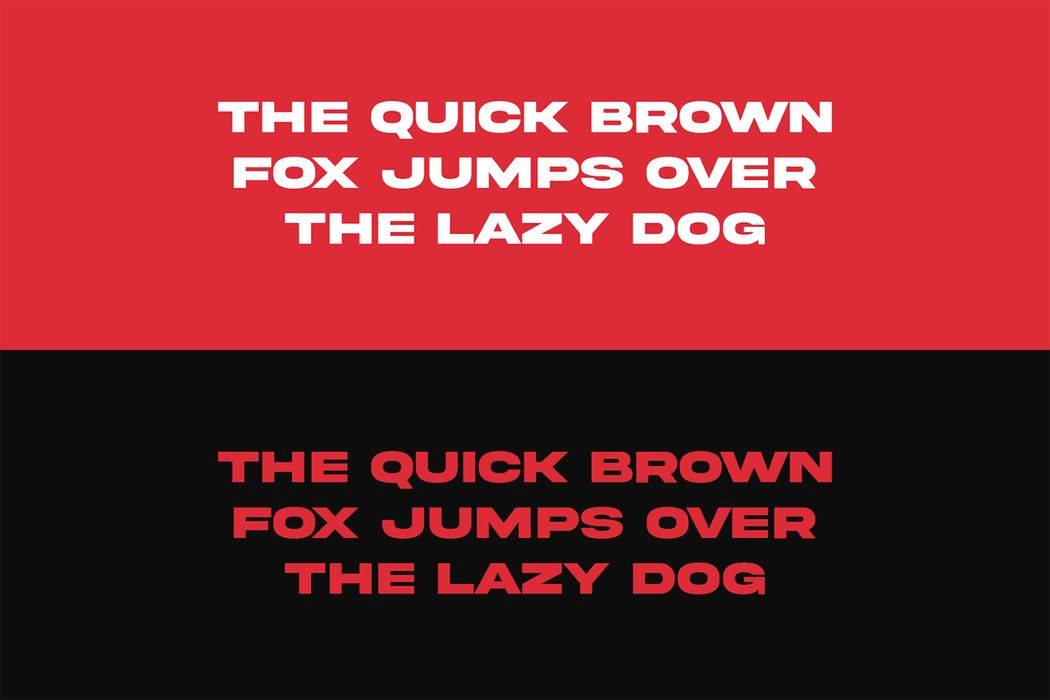
Akira Expanded is a bold, sans-serif font with an ultra-heavy weight and wide, expanded proportions that create a strong, impactful presence. Its geometric letterforms and high x-height give it a modern and dynamic feel, making it ideal for attention-grabbing headlines, logos, and branding that demand a powerful and confident style. This font works best in contexts where boldness and clarity are essential, such as posters, packaging, and editorial design.
Akira Font
About Akira Font